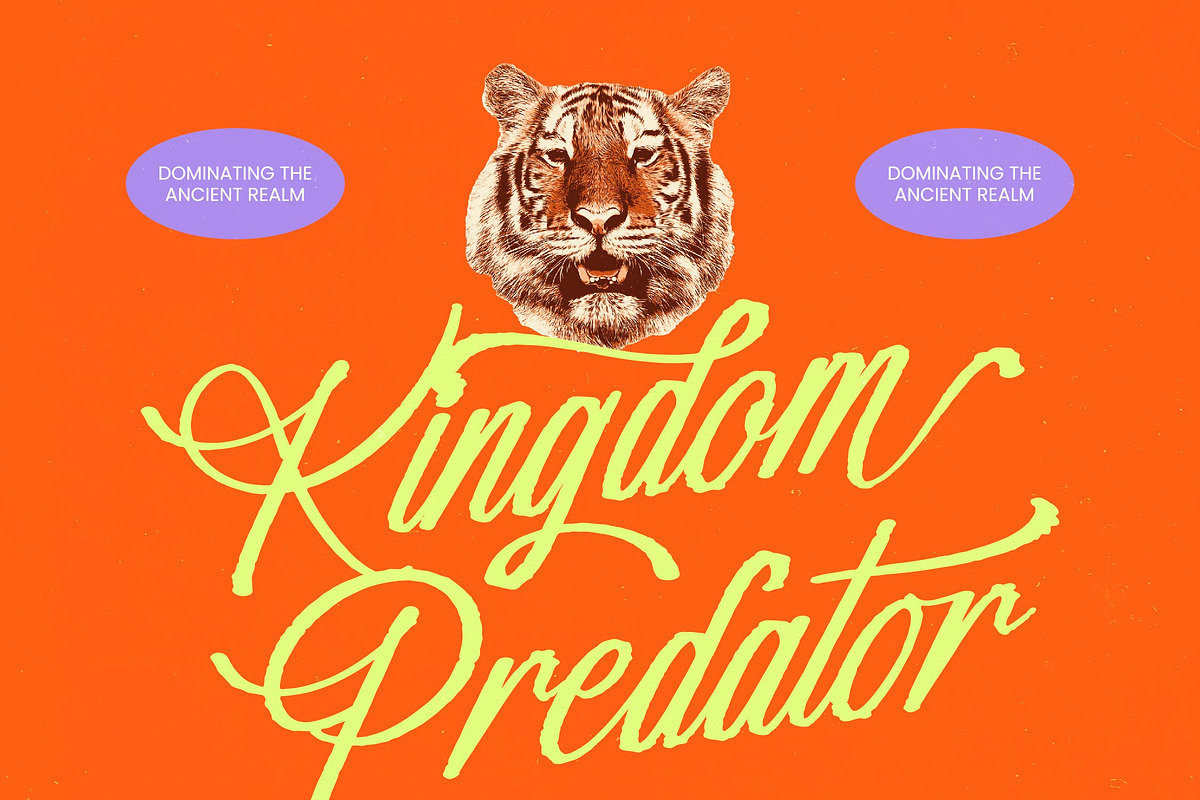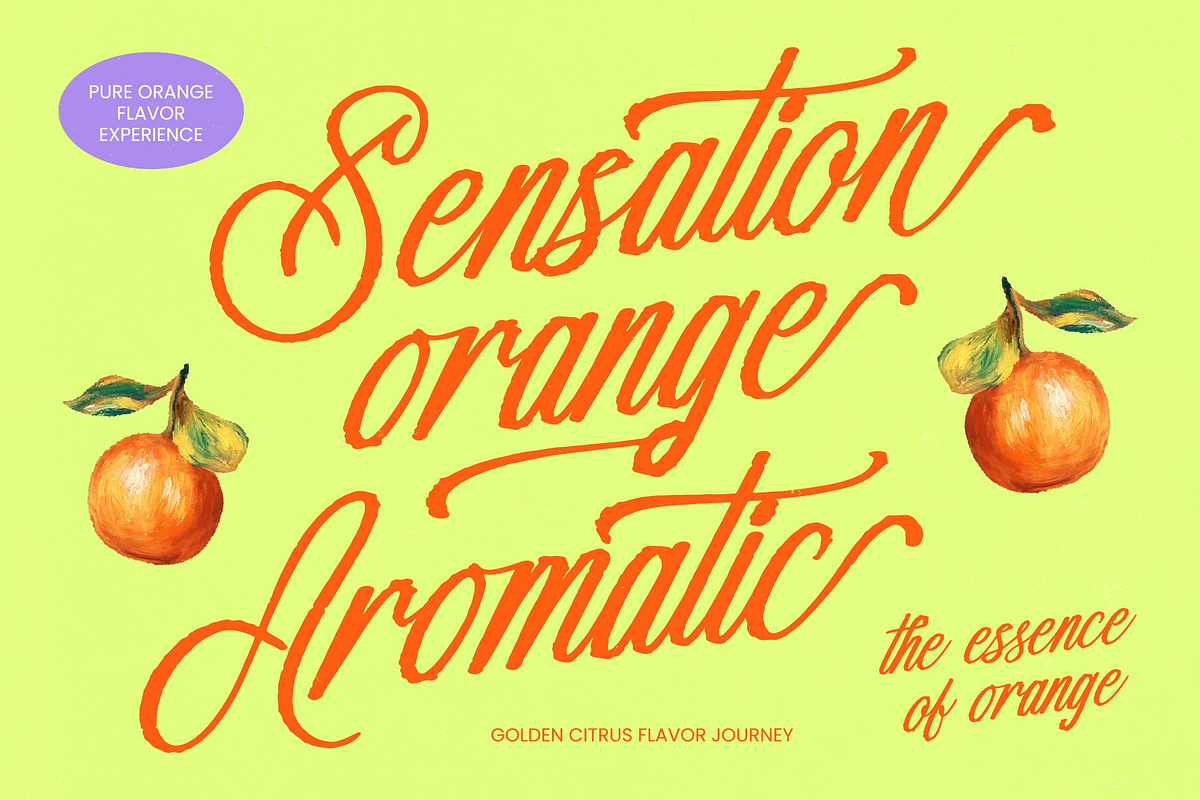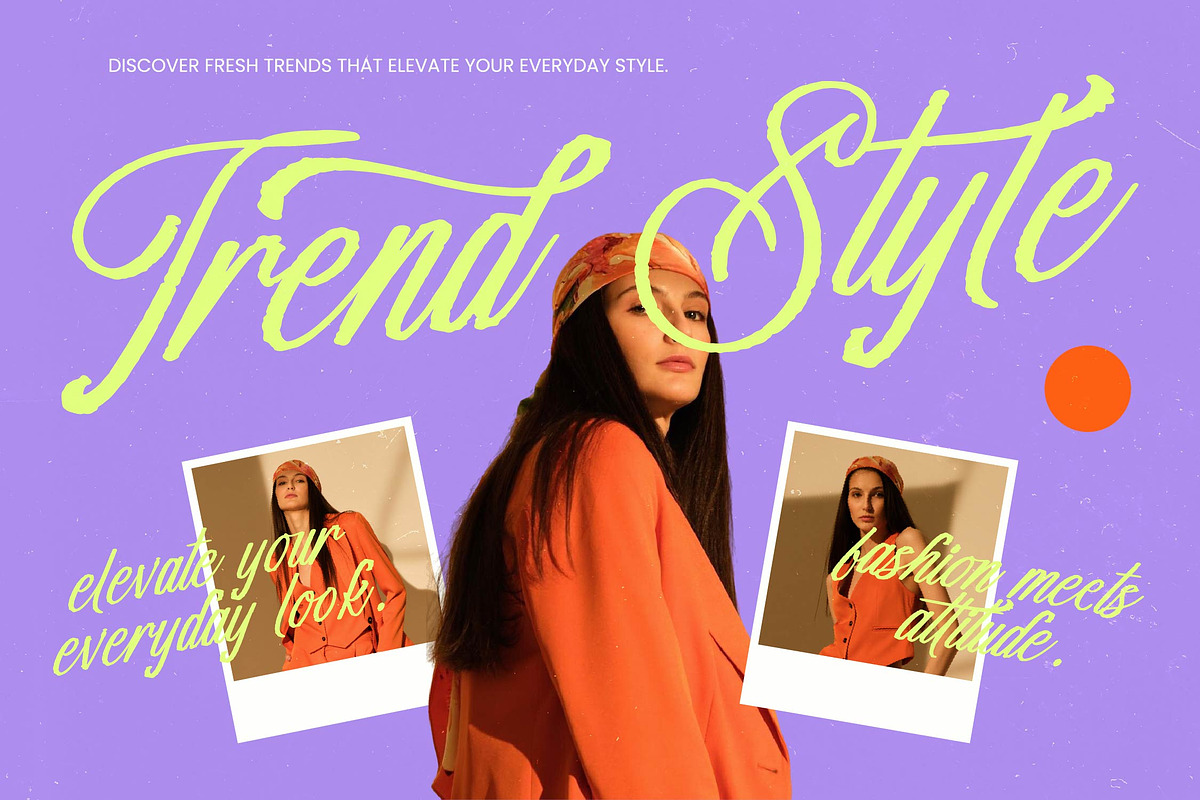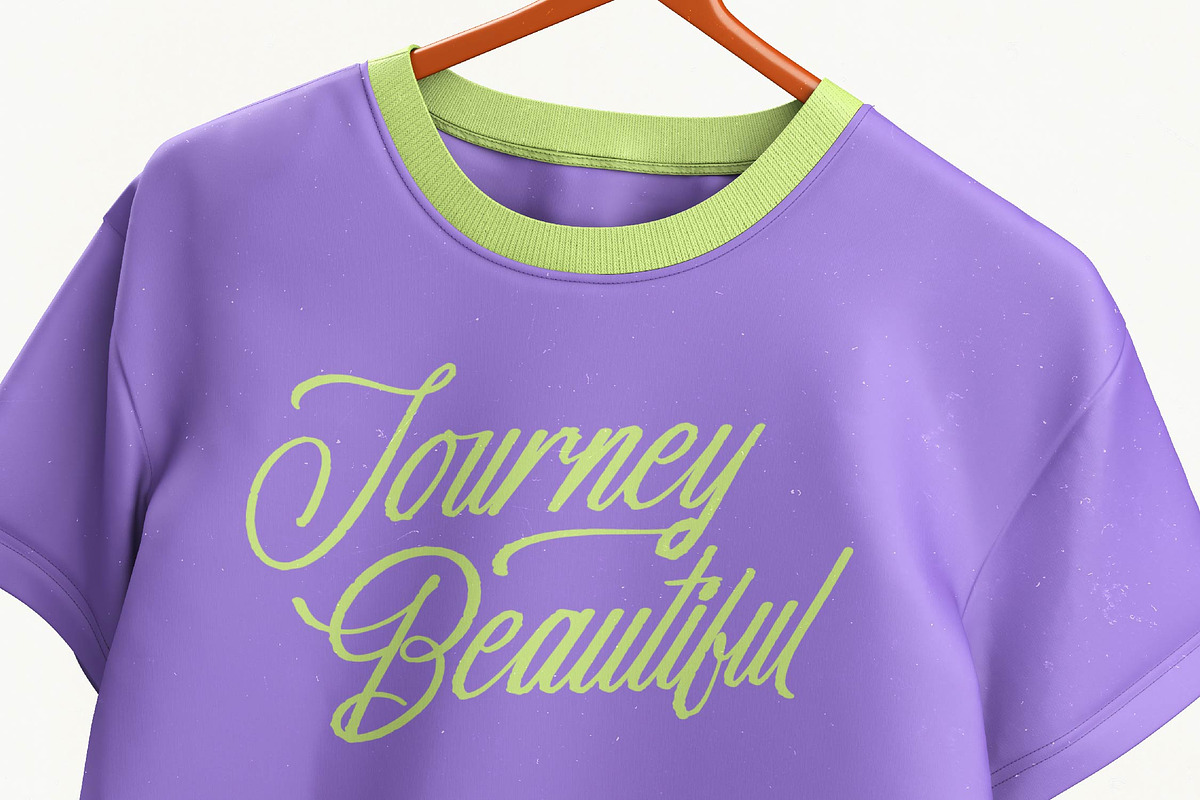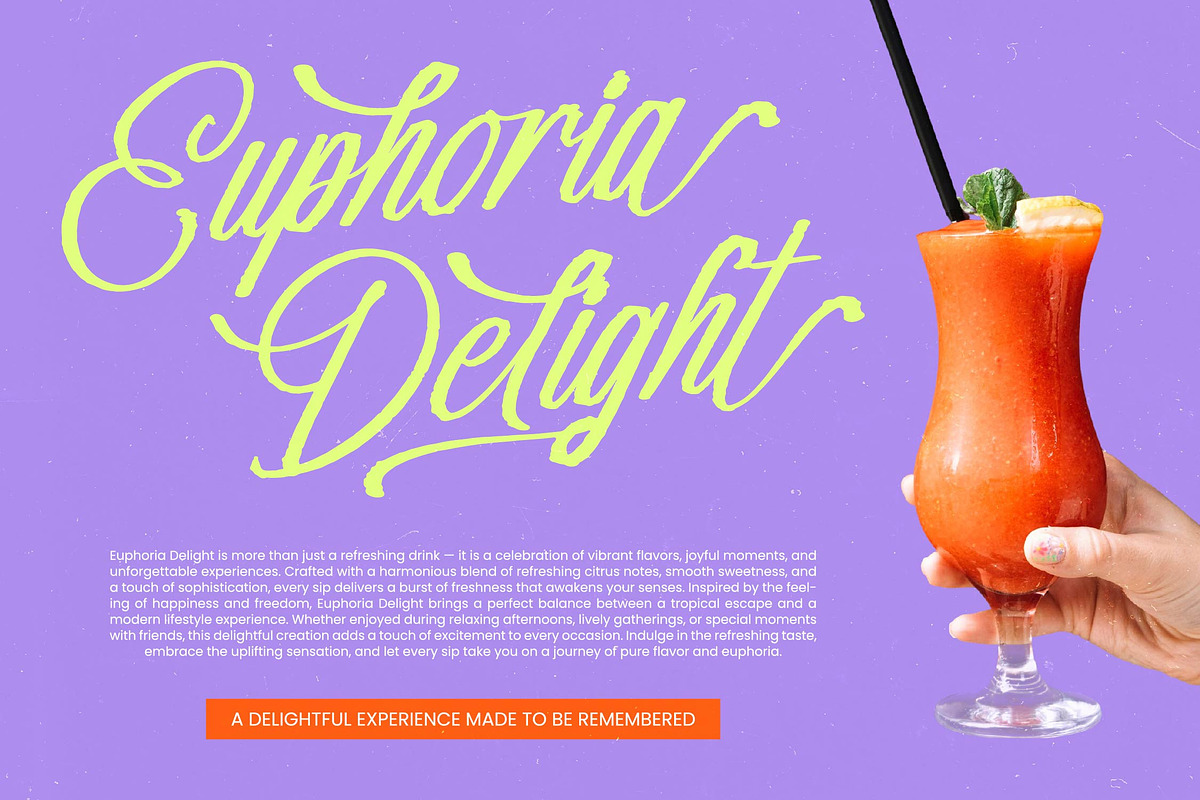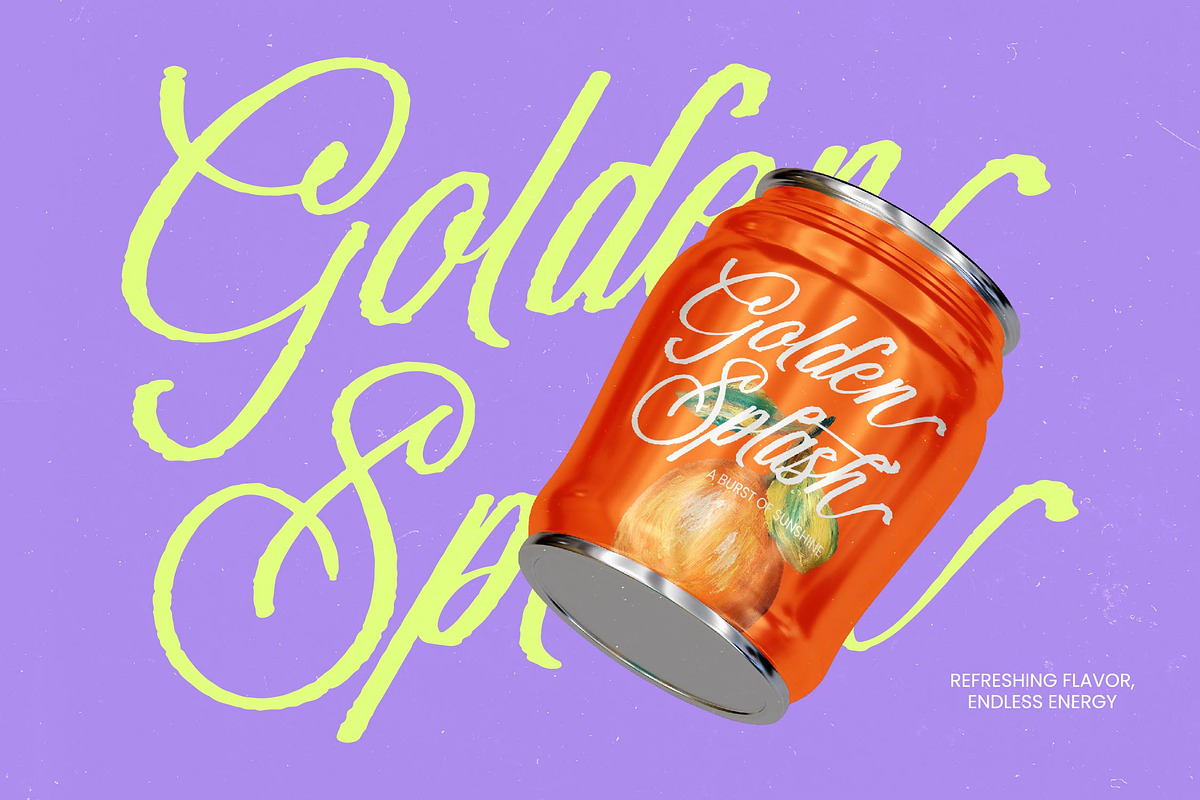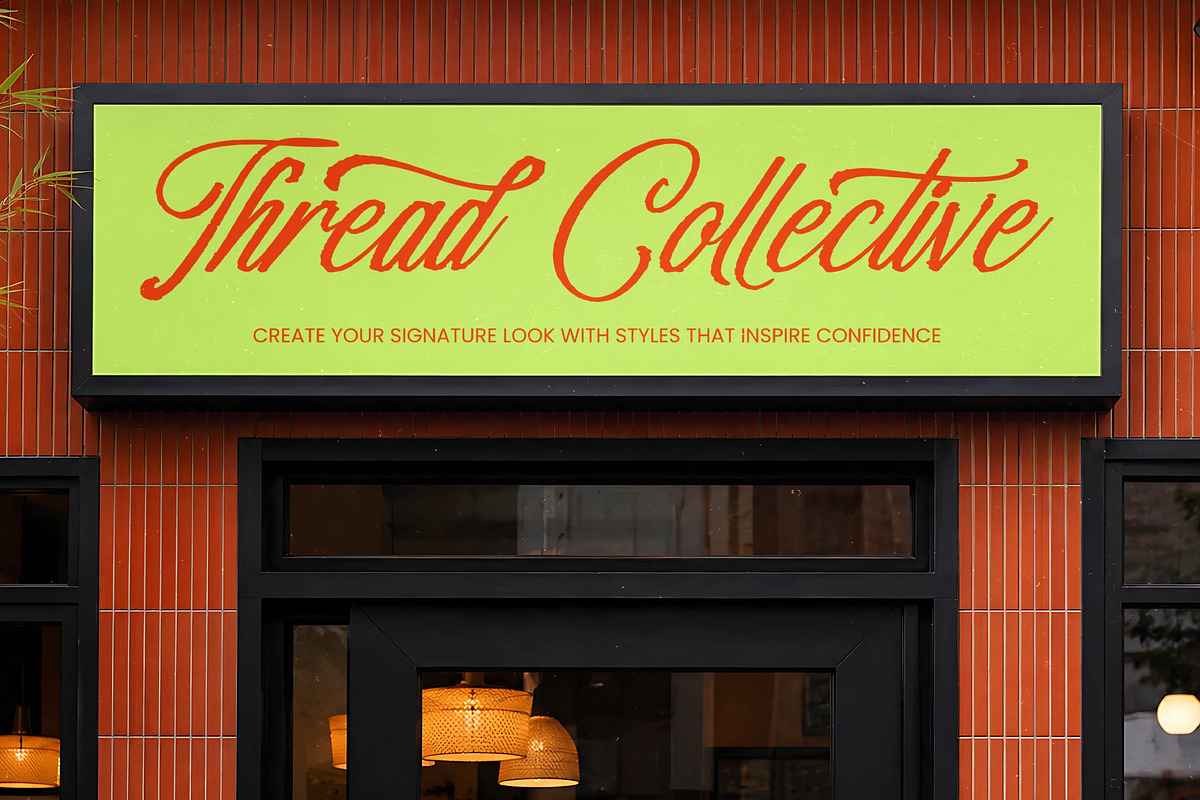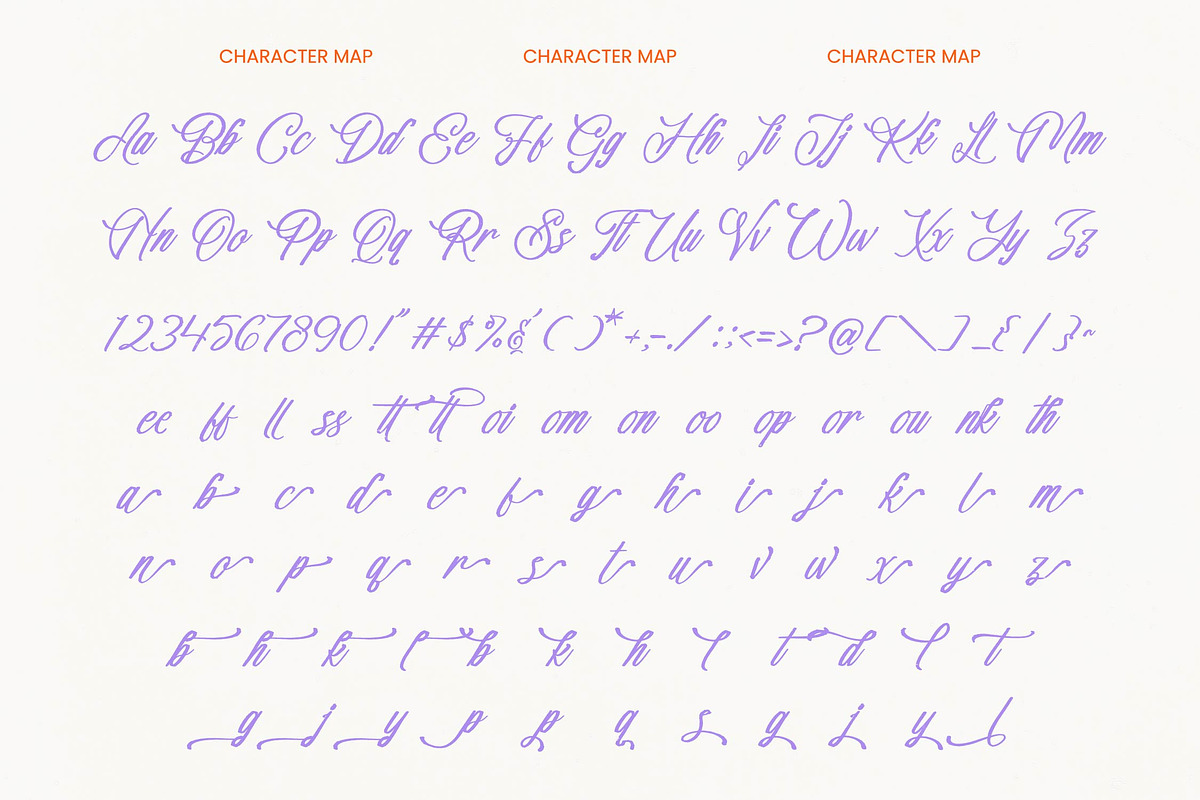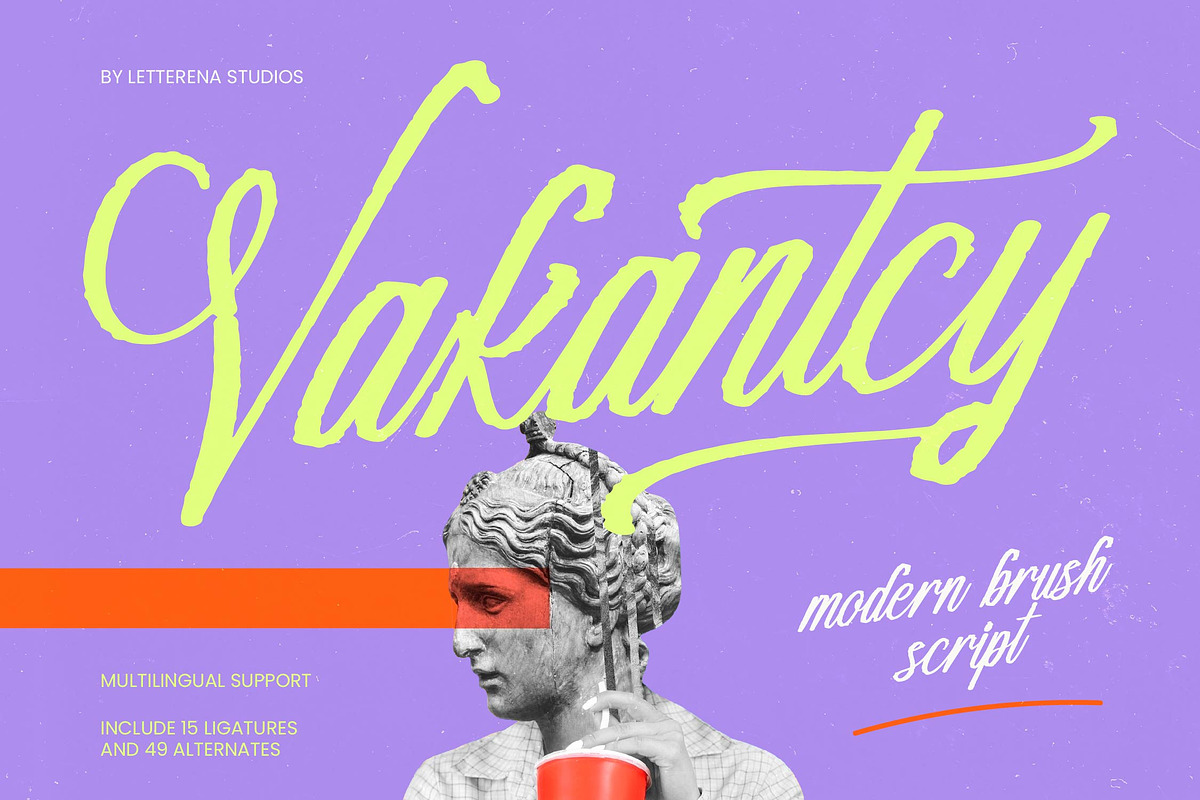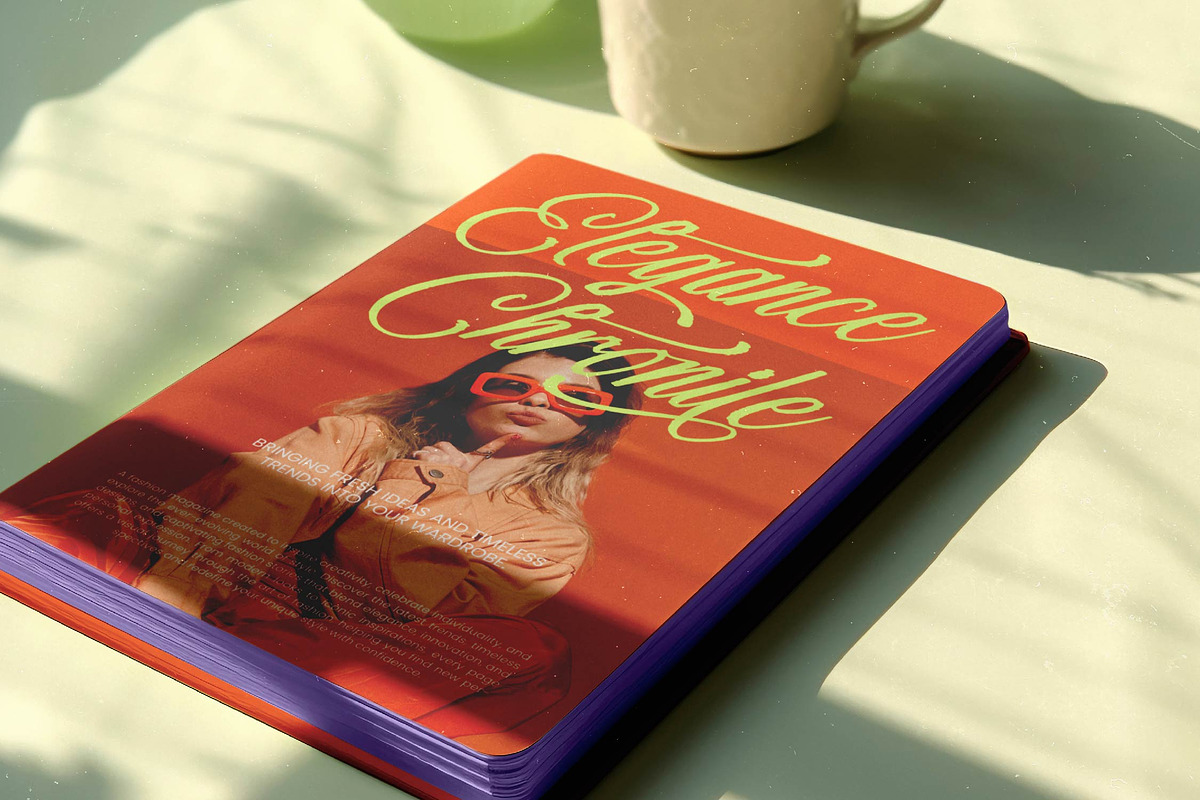
Vakantcy Modern Brush Script
Vakantcy - Modern Brush Script
Redefine contemporary elegance with a typeface that captures the raw energy of hand-painted artistry. Vakantcy - Modern Brush Script serves as a premium choice for designers seeking a dynamic aesthetic and high-impact visual communication. Its fluid strokes and natural rhythm provide an authentic, artisan feel that instantly elevates any creative composition, ensuring your projects stand out in a crowded marketplace.
Unlock limitless creative possibilities with a typeface engineered for the modern global landscape. With its extensive multilingual support, Vakantcy - Modern Brush Script adapts seamlessly across global markets, making it incredibly versatile for international projects. Featuring 15 unique ligatures and 49 stylistic alternates, this font offers unparalleled customization for those who demand bespoke typography with a professional edge.
Elevate your brand identity with a visual signature that resonates with sophistication and power. Vakantcy - Modern Brush Script is the perfect solution for luxury branding, high-end packaging, and editorial design. Whether you are crafting modern logos, striking social media graphics, or exclusive product labels, this script ensures your message is delivered with unmistakable prestige and bold artistic flair.
Secure a competitive edge in the design market by integrating high-performance typography into your professional toolkit. As a commercially-focused asset, Vakantcy - Modern Brush Script combines legibility with expressive personality, driving engagement across both digital and print mediums. Investing in this hand-crafted masterpiece guarantees a polished finish for any creative campaign seeking to leave a lasting impression on a discerning audience.